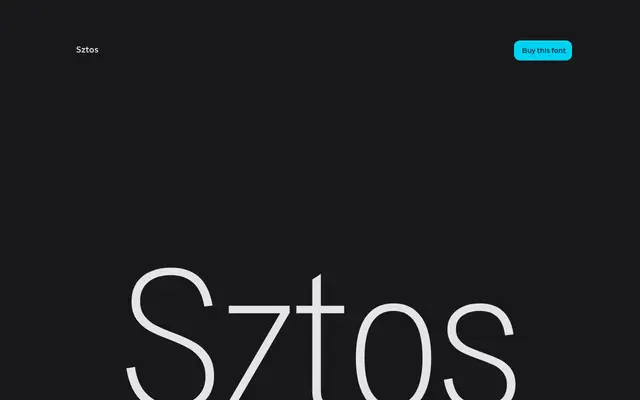
Sztos
Capitalics · Mateusz Machalski · 2018
A 40-style grotesque family by Mateusz Machalski, loosely reviving the Polish typeface Baccarat (1922) with modernised proportions and a retained historical character.
Developed between 2018 and 2022, Sztos takes Baccarat — a grotesque published by Jan Idźkowski i S-ka in 1922 — as its starting point, updating the drawing and proportions while keeping traces of traditional Polish printing craft. The family spans 10 weights from Hairline to Black across normal and condensed widths, each with matching italics, totalling 40 styles plus a variable font. The contrast between the wider normal and tighter condensed cuts makes the family well suited to expressive typographic combinations in editorial and branding contexts.
Sztos is a modernised remix of Baccarat, a Polish grotesque from 1922, retaining historical printing details while updating proportions — placing it firmly in the grotesque tradition with a central European vernacular character.